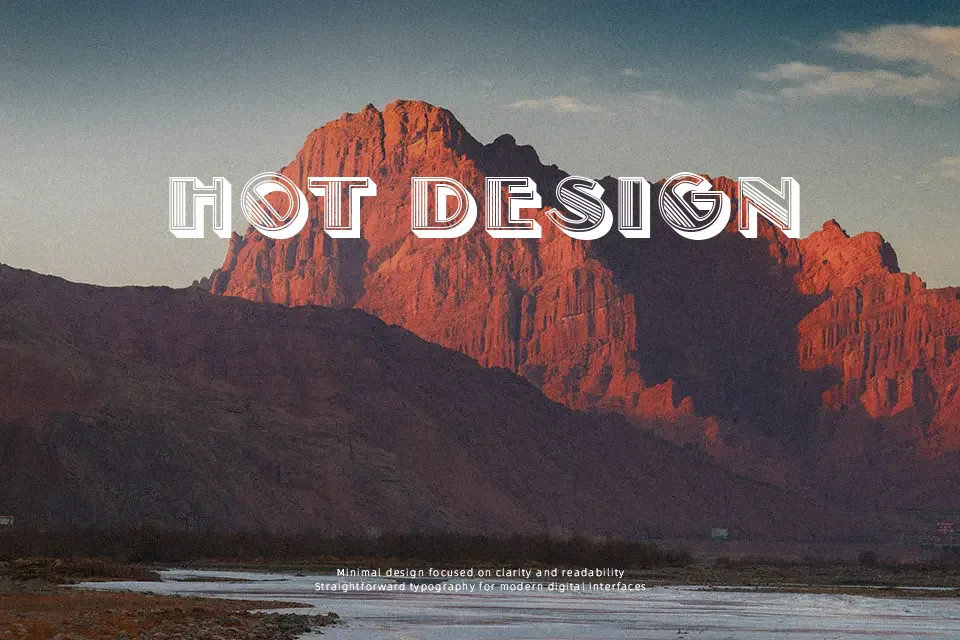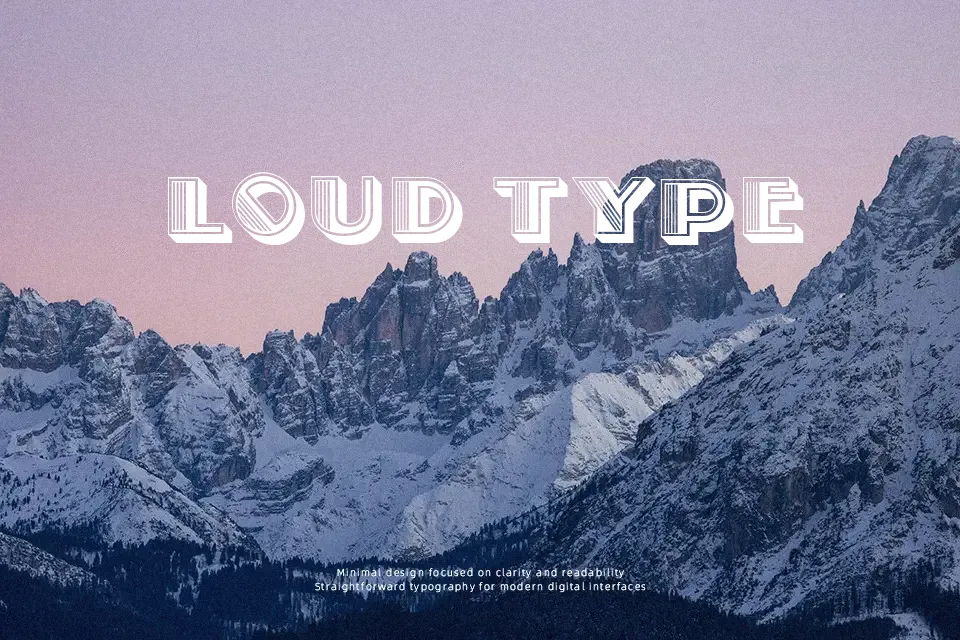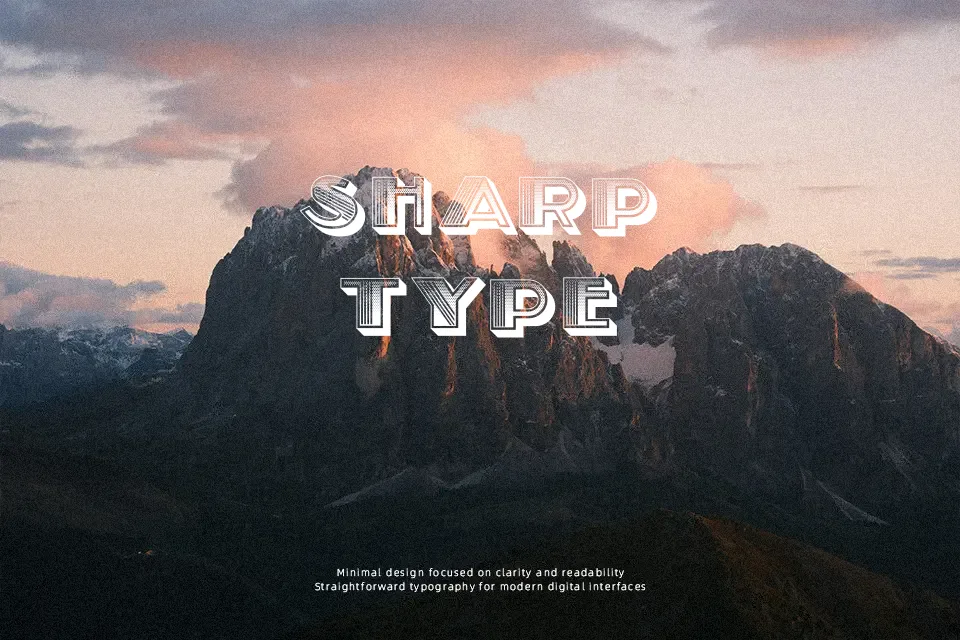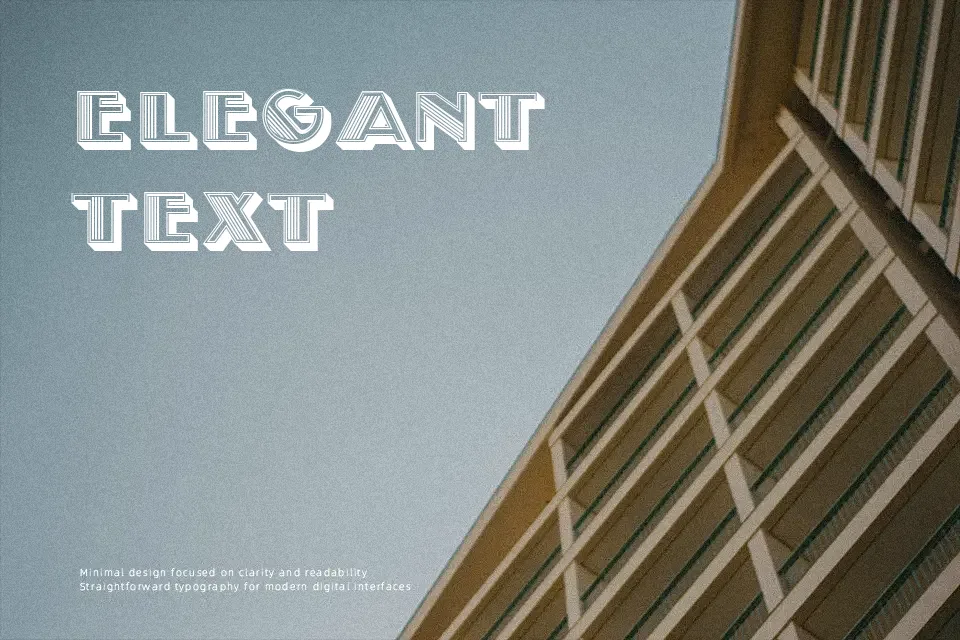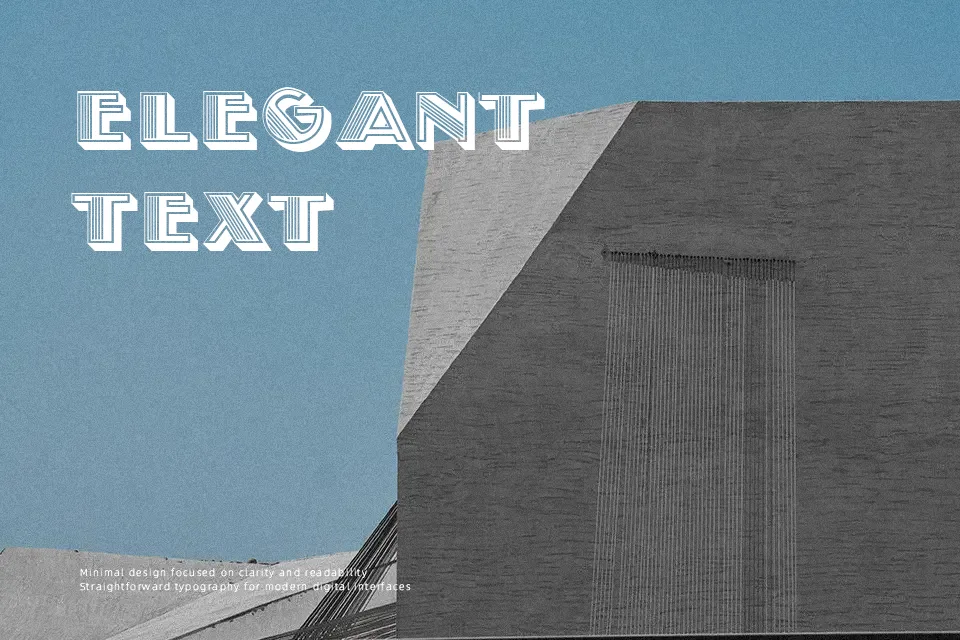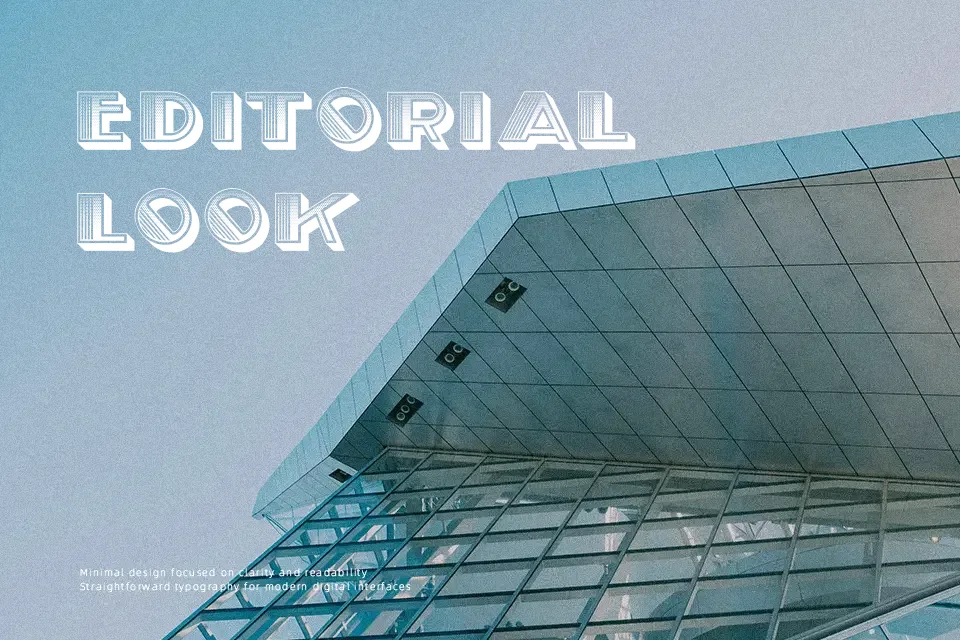
Adriatica Font
Adriatica carries the weight of a classic sign-painter’s toolkit — wide, expanded letterforms, heavy strokes, and a distinctly retro character that leans into nostalgia without becoming campy. The family’s three variants (Regular, Black, and Hollow) give designers room to layer and contrast, making it serviceable for poster headers, event branding, and retro-themed packaging. The expanded width and extra-bold weight give it natural authority at large sizes, but that same breadth becomes a liability in condensed layouts or tight grids. Paragraph setting is out of the question — this is a display face through and through, so restraint in body copy is non-negotiable. It earns its keep best when given breathing room and a complementary secondary typeface.
Best For:- Vintage poster headlines
– Retro-themed brand logos
– Music event flyers and concert signage
– Packaging for craft or artisan products
Not Ideal For:- Body text or long-form reading
– Corporate or formal documents
– Condensed or narrow layout compositions
– Multilingual projects requiring extended character sets (only 53–56 glyphs)
Perfect for advertising, branding, and headline, with a bold and display style.